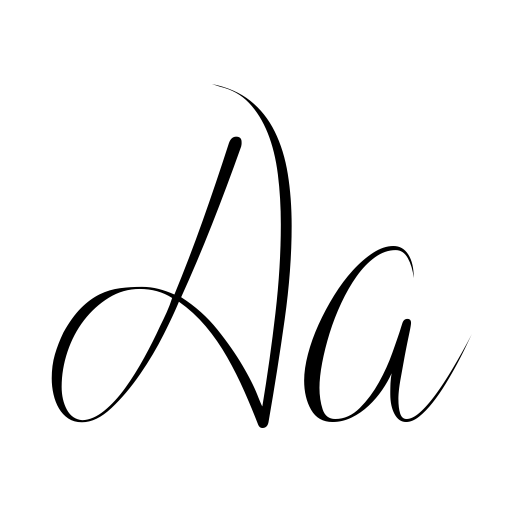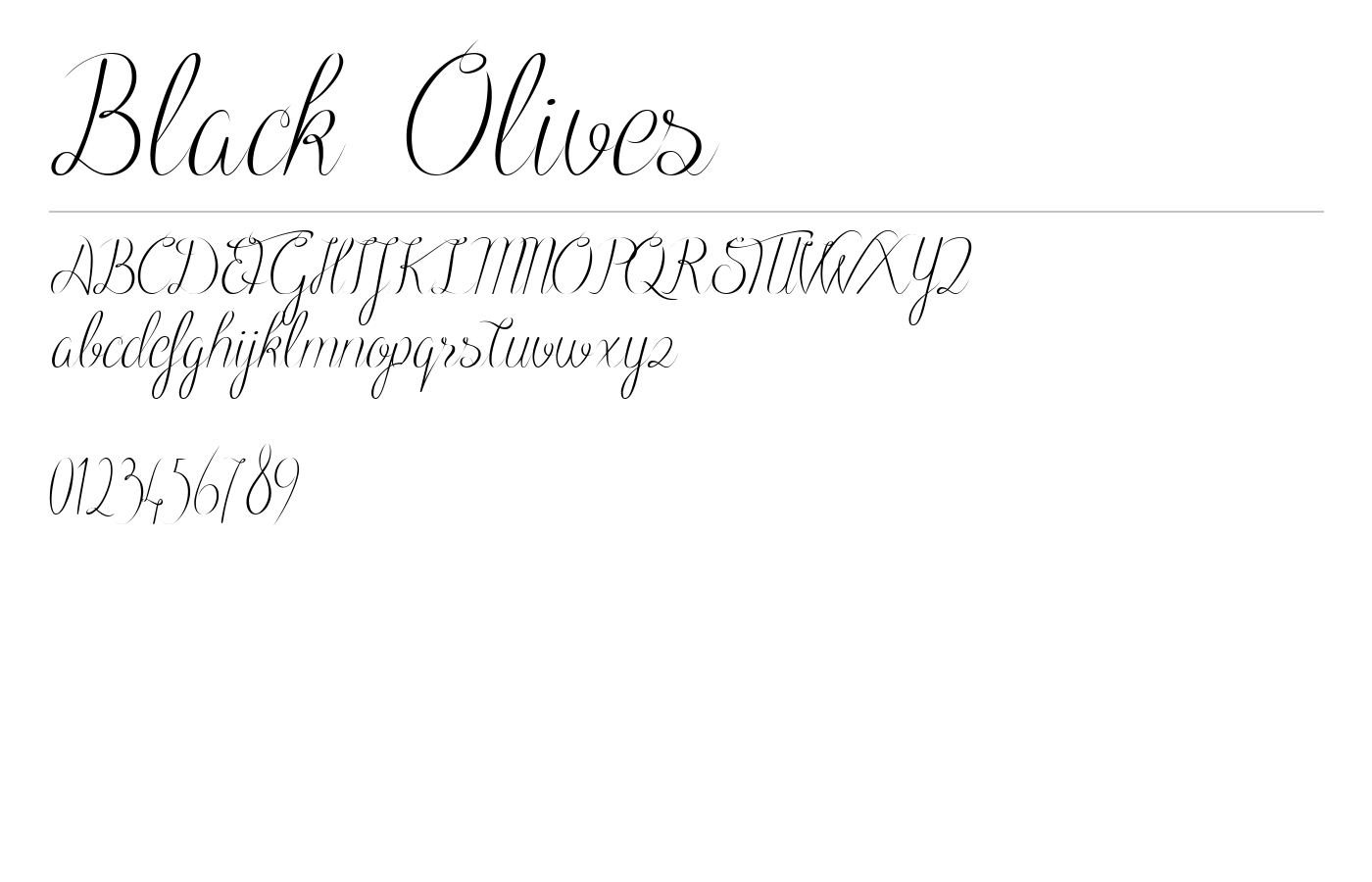
Black Olives is an elegant, delicate script font featuring thin, flowing strokes and graceful, calligraphic curves that give it a sophisticated yet light appearance. Its tall, narrow letterforms and fine lines make it perfect for refined branding, wedding invitations, and upscale editorial designs where a touch of classic beauty and femininity is desired. This font shines best in decorative uses, adding charm and luxury to headlines and logos.
Black Olives Font
About Black Olives Font
| Font family | Black Olives Font |
| Designer | Roland Huse |